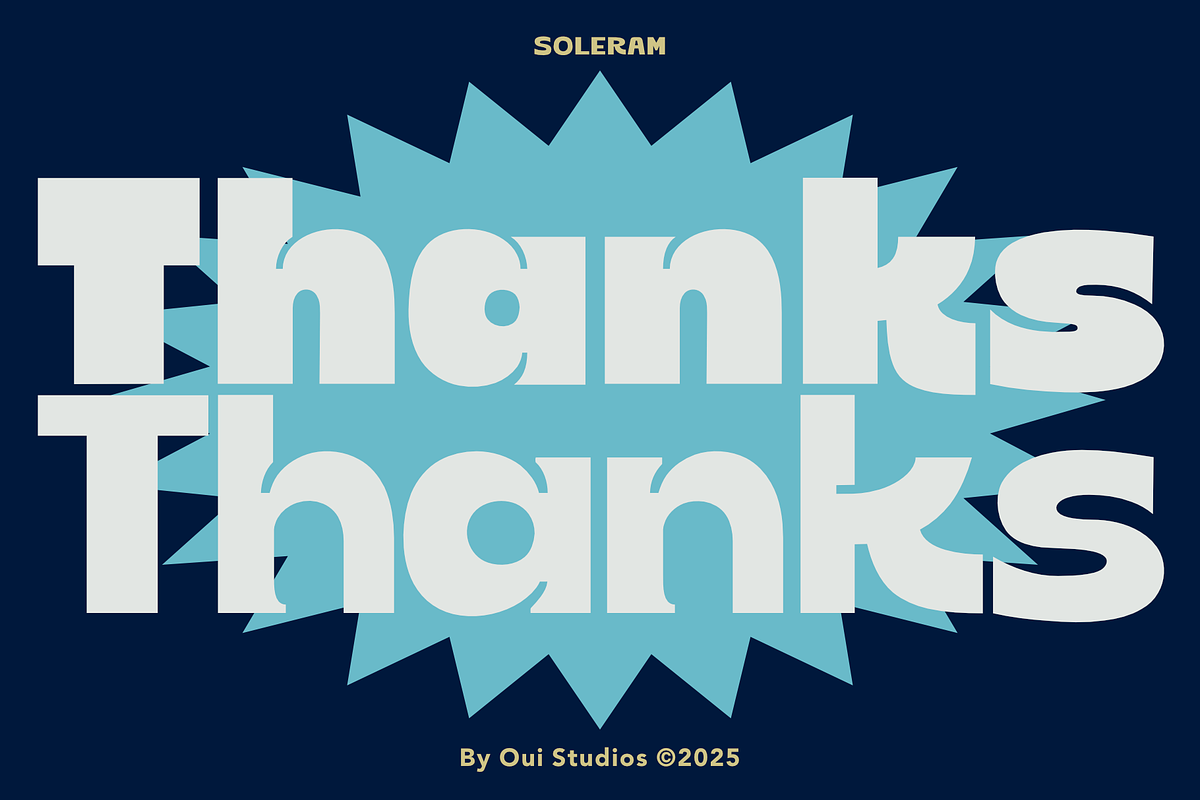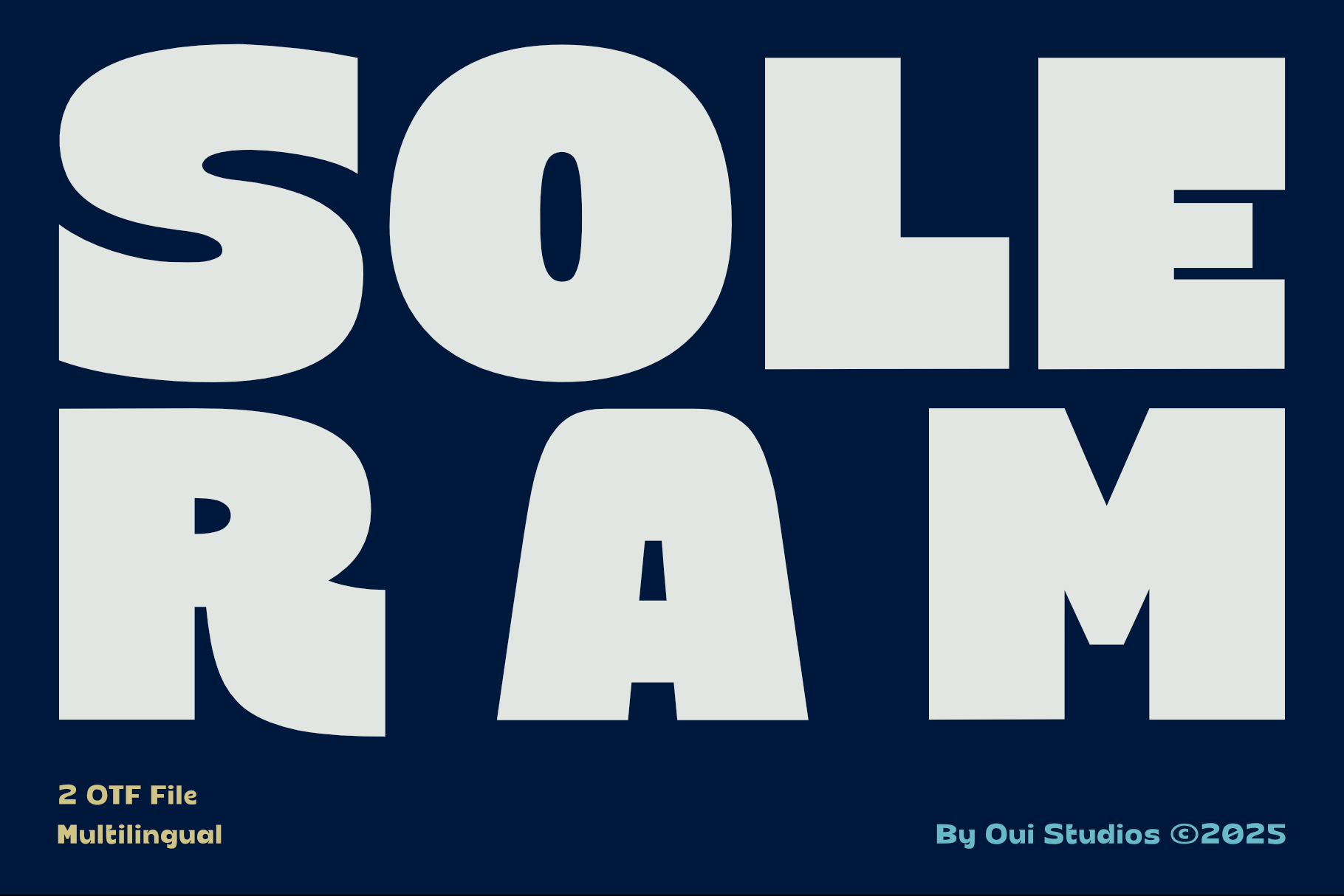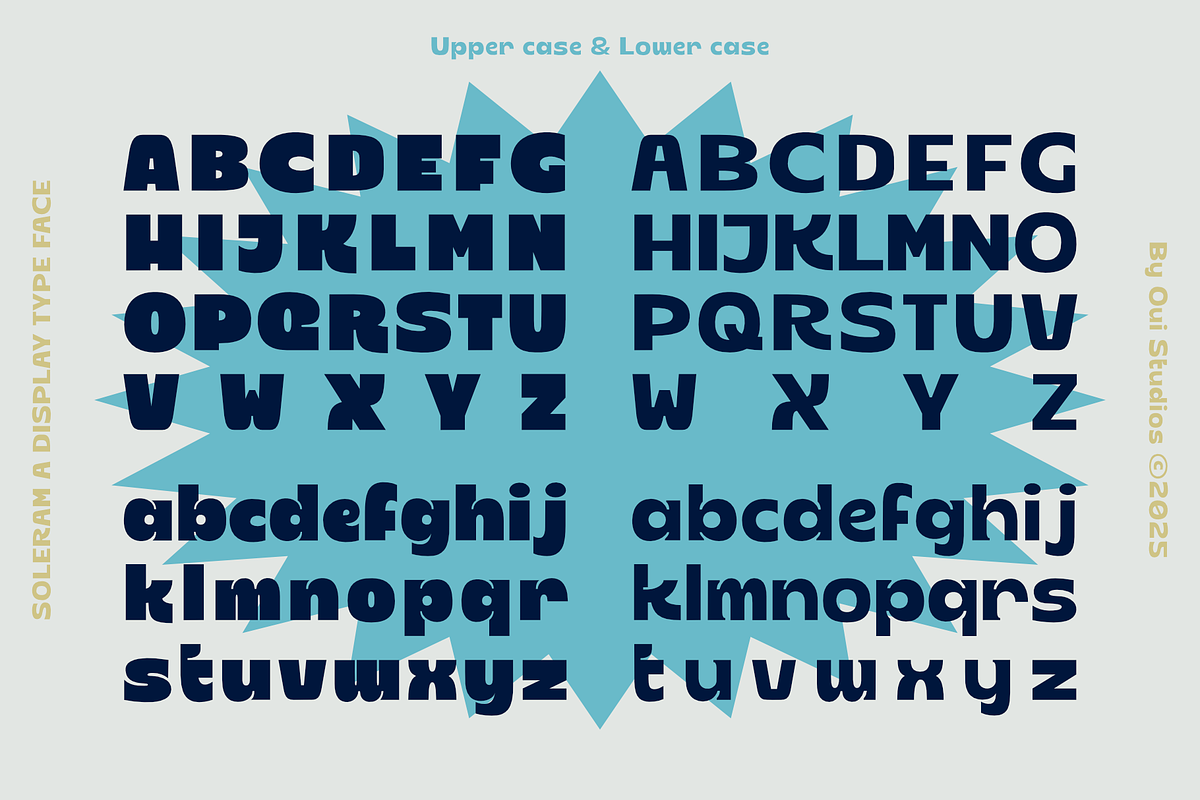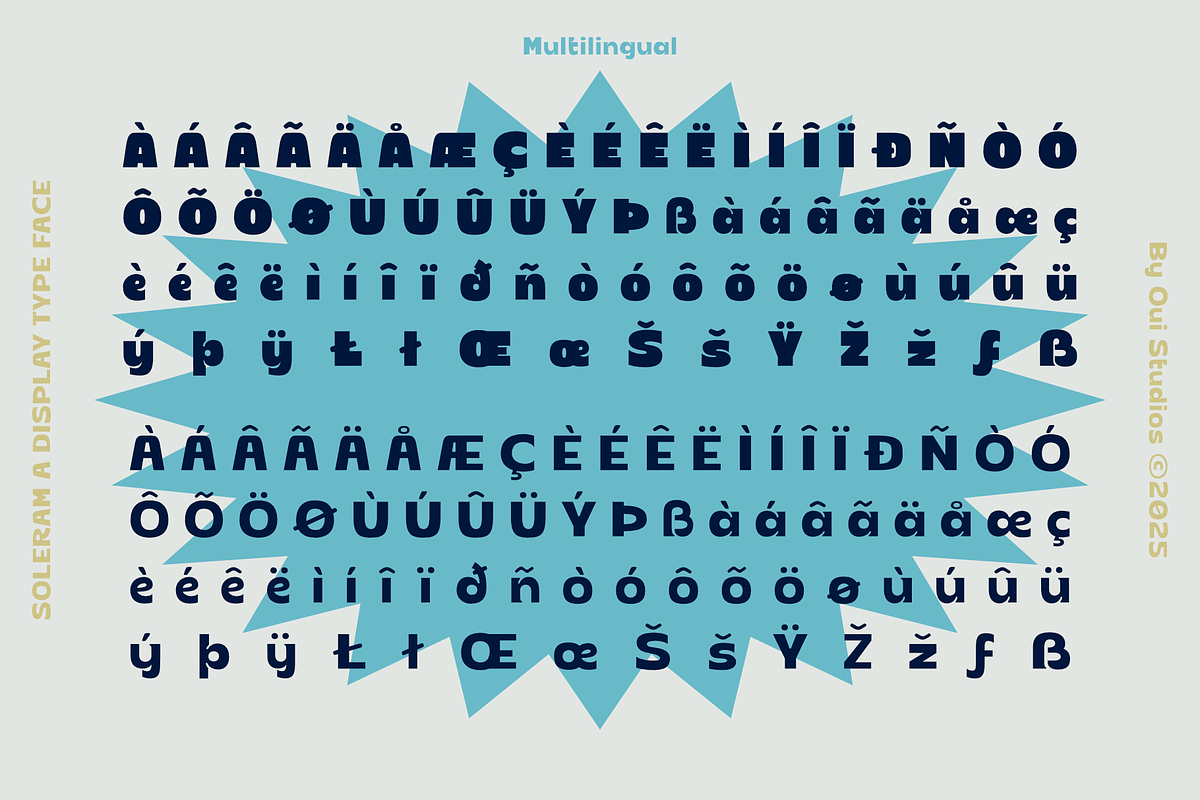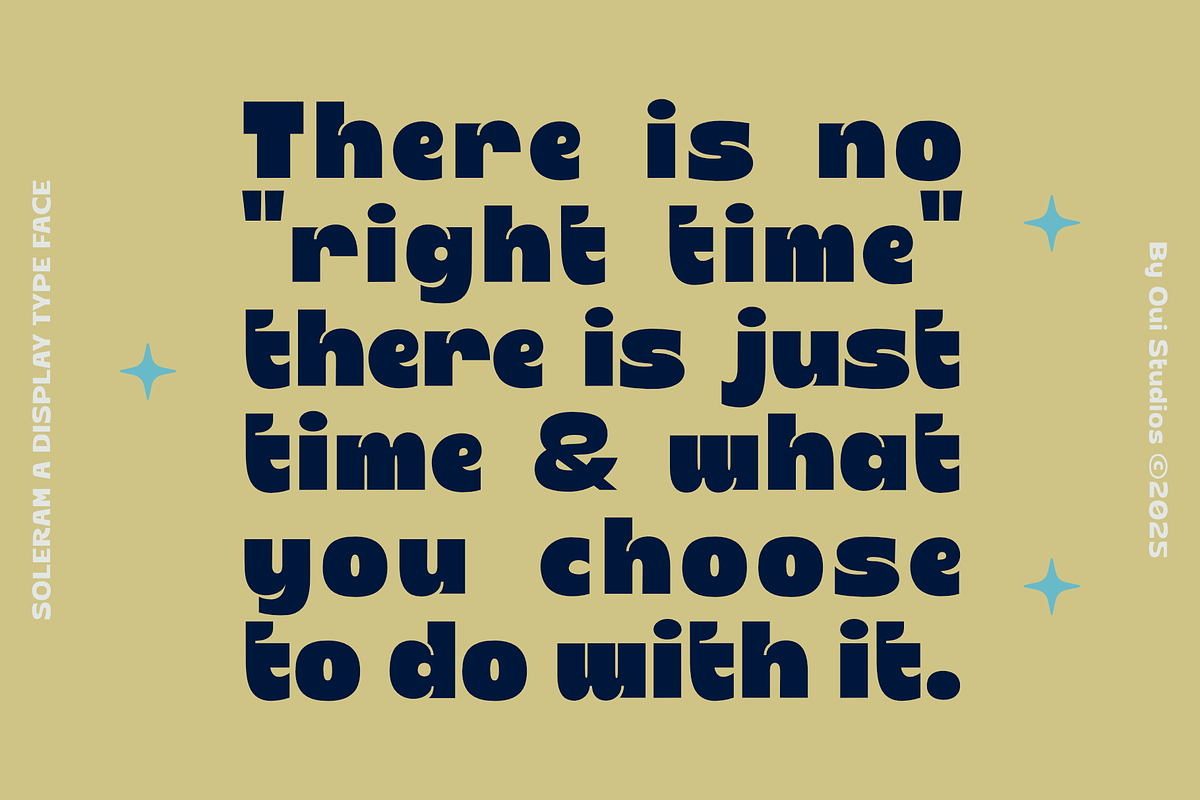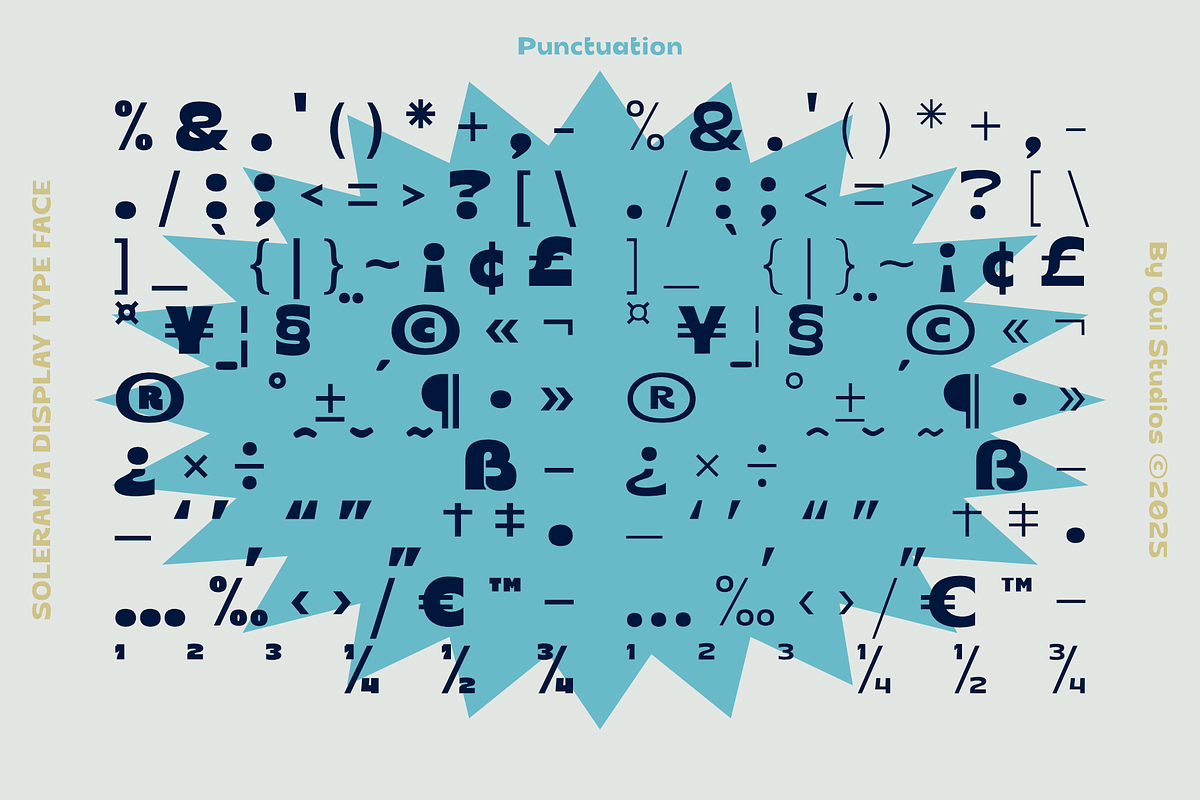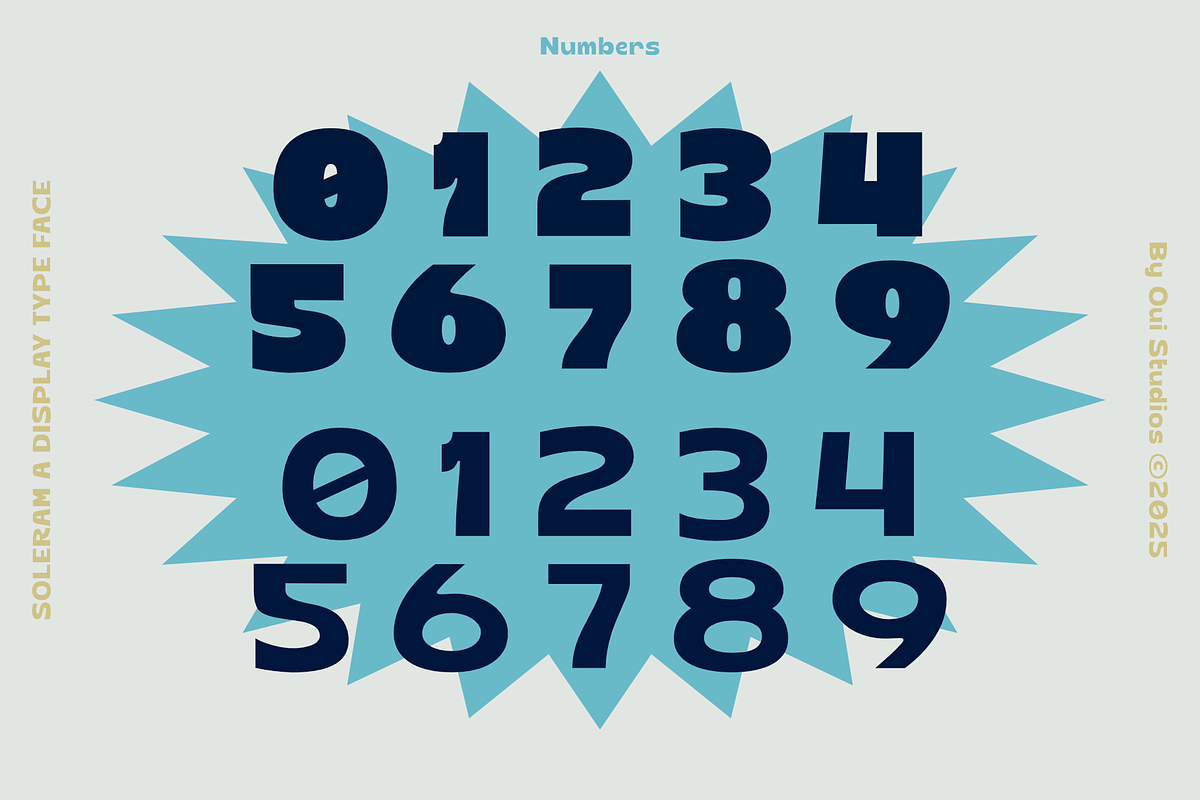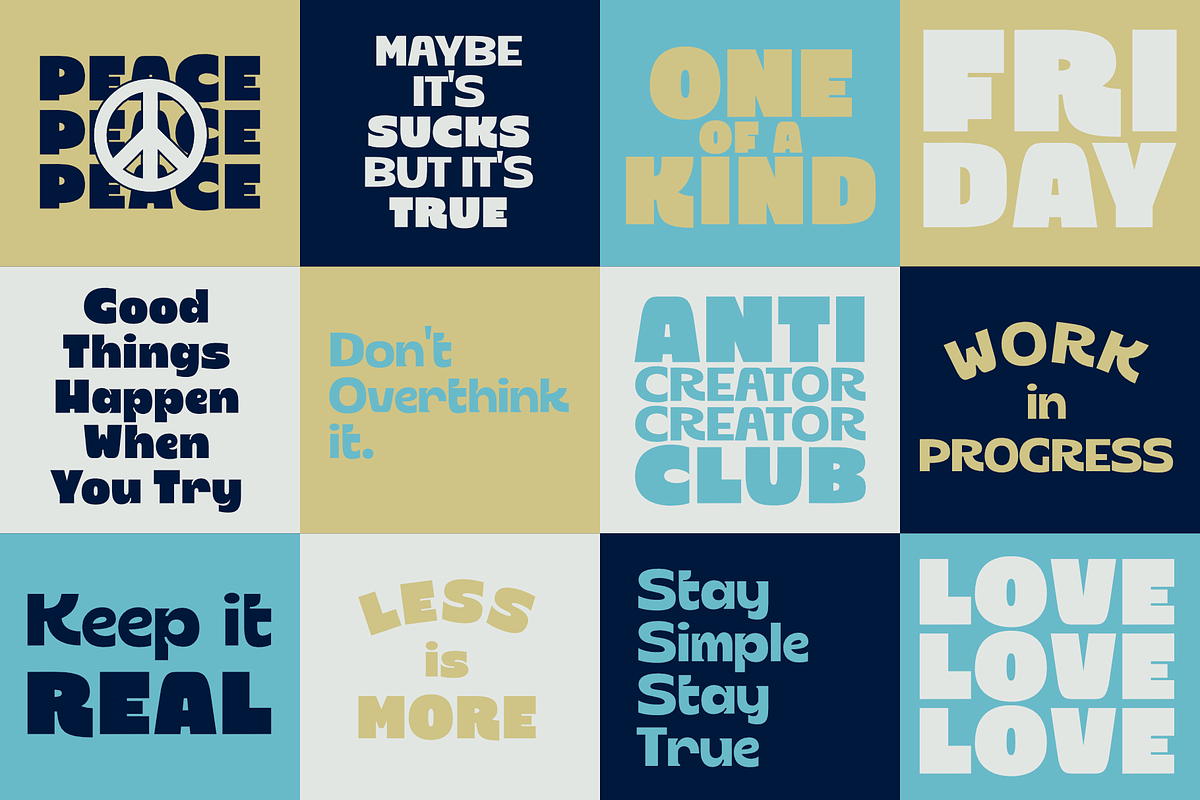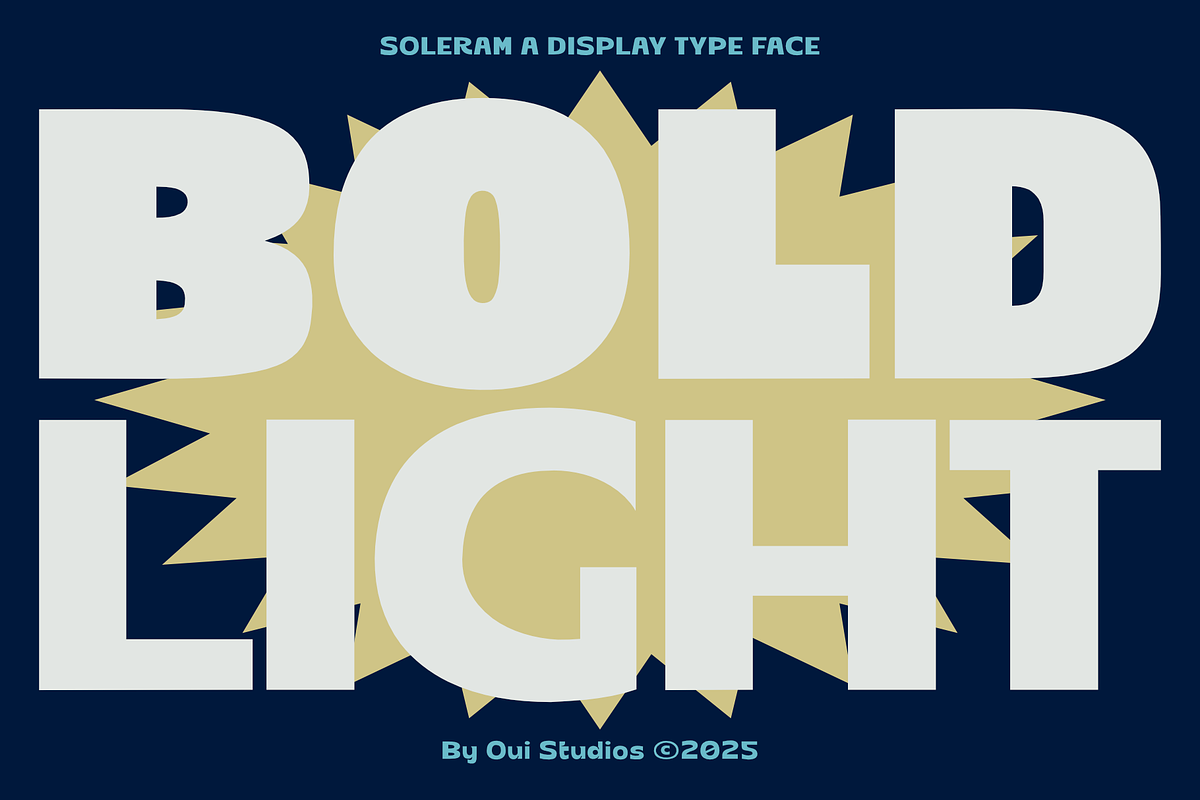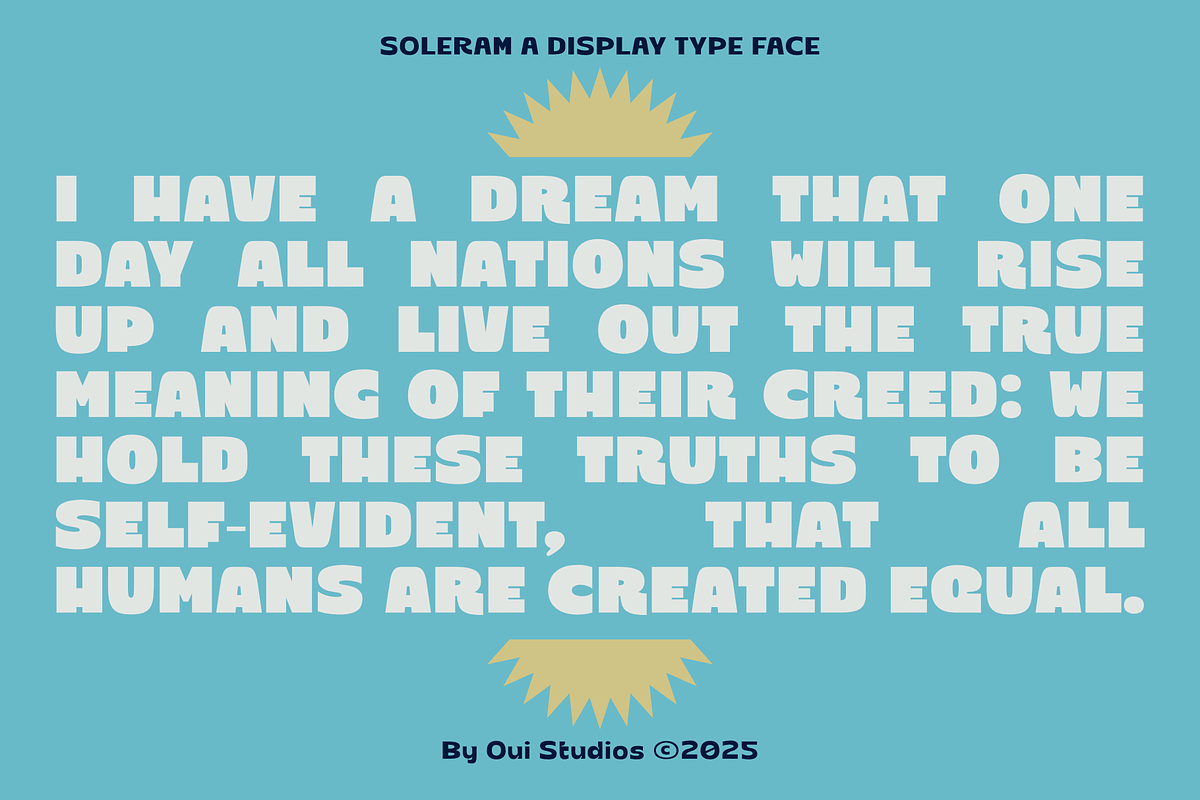
Soleram Sans Serif Display Font
Hello friends! The 'Soleram' font is coming, a modern sans serif display font. Soleram comes with two variation thicknesses.
Soleram has a balance of thickness and rounded. It's perfect for branding, logo, invitations, greeting cards, packaging, graphic tee, posters, digital or print stuff, artwork, products, etc.